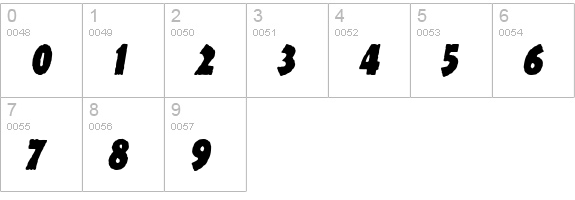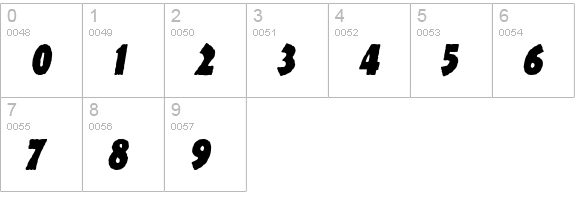
DinosauriaCondensed Italic Font Details
DinosauriaCondensed Italic is a distinctive, italic variant in the DinosauriaCondensed typeface family \xE2\x80\x94 well suited to design and typography projects.
DinosauriaCondensed Italic font is a bold and dynamic typeface that exudes strength and power. Its sleek and slanted design adds a touch of modernity to any project, making it perfect for headlines, titles, and branding materials. The italicized style gives this font a sense of movement and energy, making it ideal for projects that require a sense of urgency or action. Not only does DinosauriaCondensed Italic font bring a unique flair to your designs, but it is also available for free download at FontsMarket.com. This means you can easily access this striking font and incorporate it into your projects without any cost. Whether you are working on a poster, website, or logo, DinosauriaCondensed Italic font is sure to make a bold statement and leave a lasting impression on your audience.